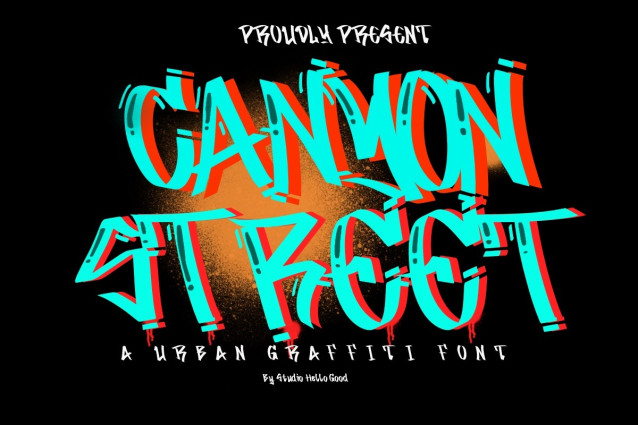
Canyon Street Font
Canyon Street Font is a modern and urban display font. This font is suitable for many design projects, such as branding, packaging, logos, wall art, headlines, banner, poster, and more!